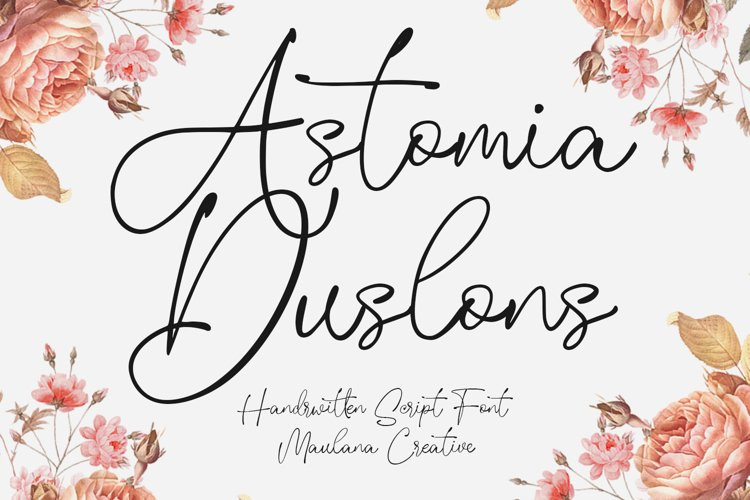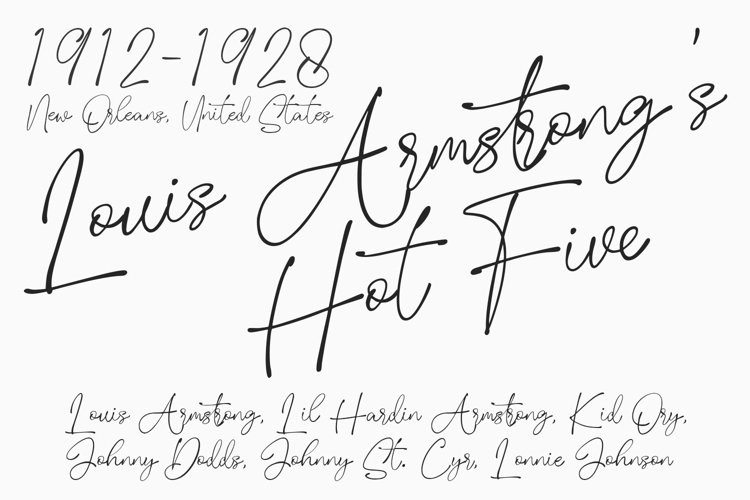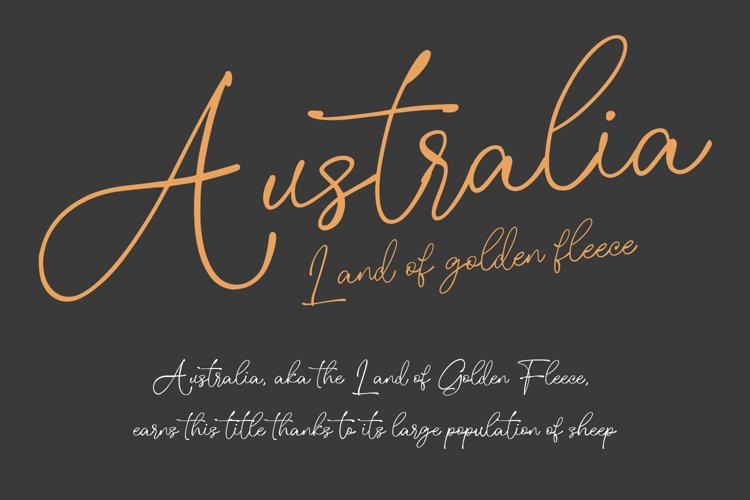
Astomia Duslons Font
Astomia Duslons FontAstomia Duslons is a fancy casual handwritten script font. With light pen contrast stroke, fun character with a bit of ligatures. To give you an extra creative work. Astomia Duslons font support multilingual more than 100+ language. This font is good for logo design, Social media, Movie Titles, Books Titles, a short text even a long text letter and good for your secondary text font with sans or serif. Make a stunning work with Astomia Duslons.